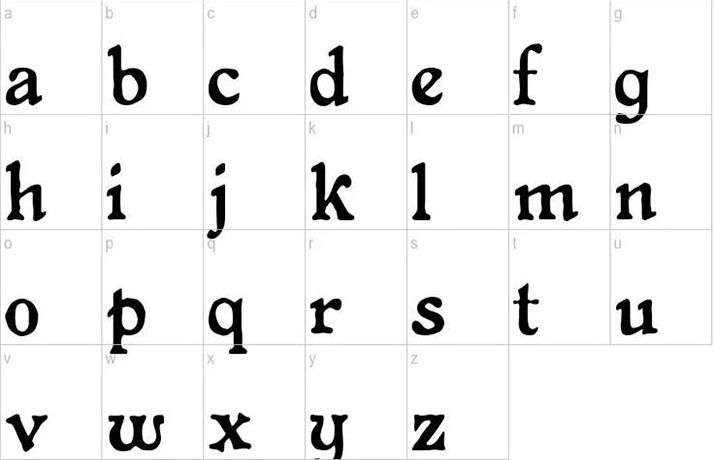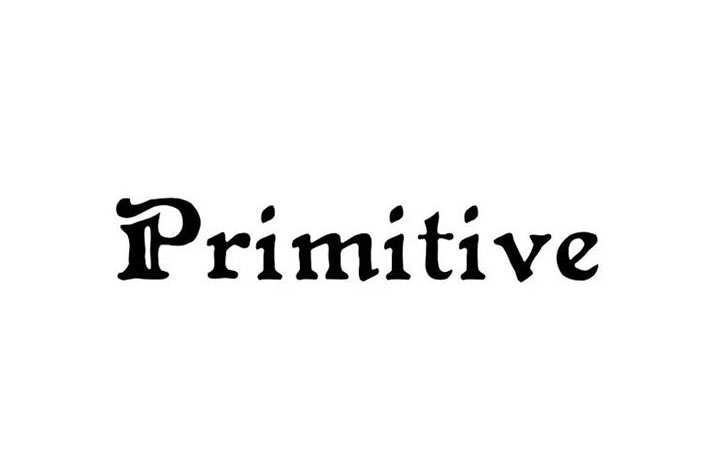
Primitive Font is a gothic typeface that comes with rustic and vintage letterforms. Richard William Mueller is known as the primary designer of it because he releases it for the first time.
This font’s texture is unique due to its slightly irregular letters. It is similar to the vintage texture used in newspapers in the 1950s.
Its chunky letterforms and slightly uneven spacing make it ideal for various projects including body text, logos, headers, titles, branding, signage, and eye-catching display.
- You can make certificates, book covers, distinctive emblems, game graphics, product designs, special event cards, product packaging, social media banners, flyers, brochures, signs, movie posters, special quotes, and much more with the aid of this unique font.